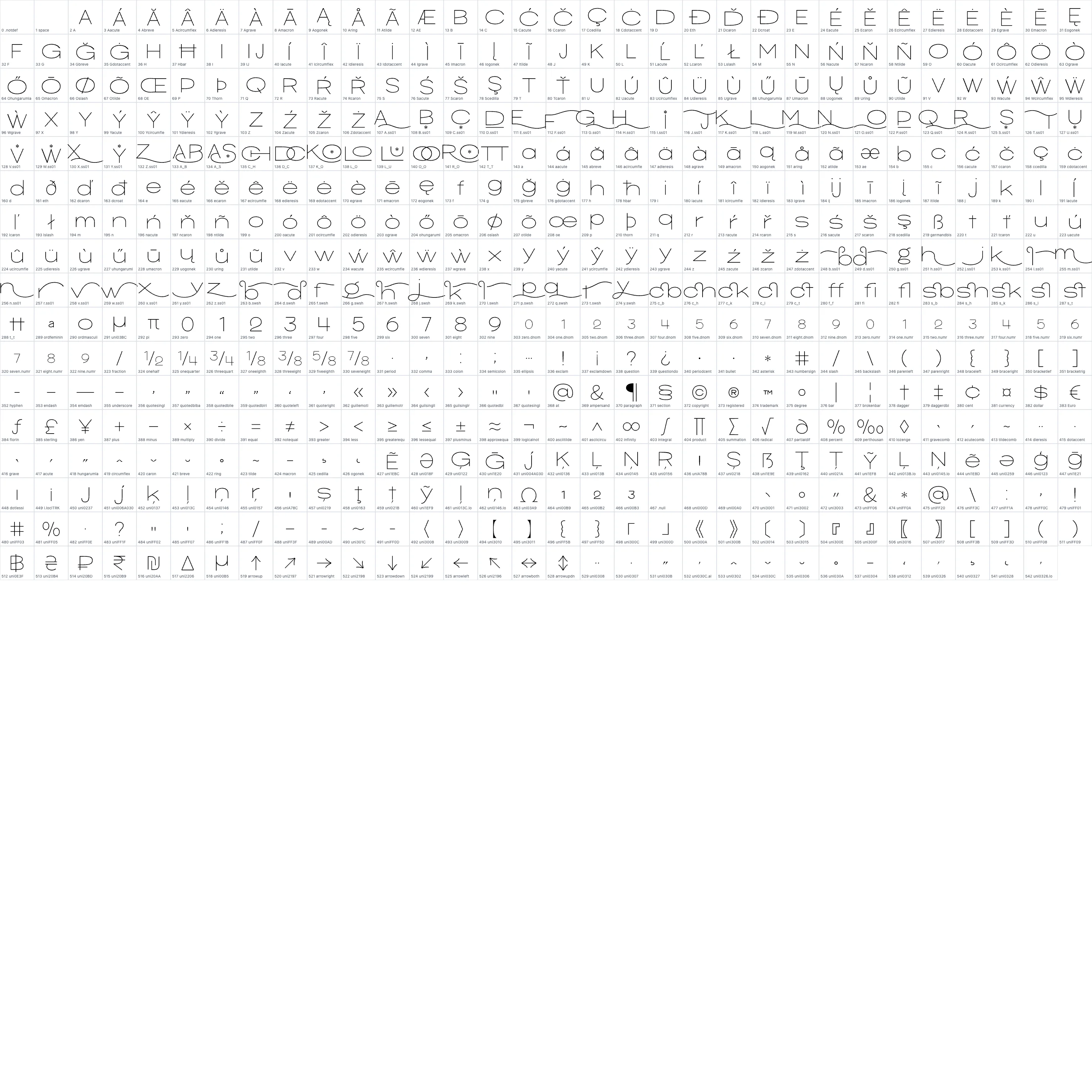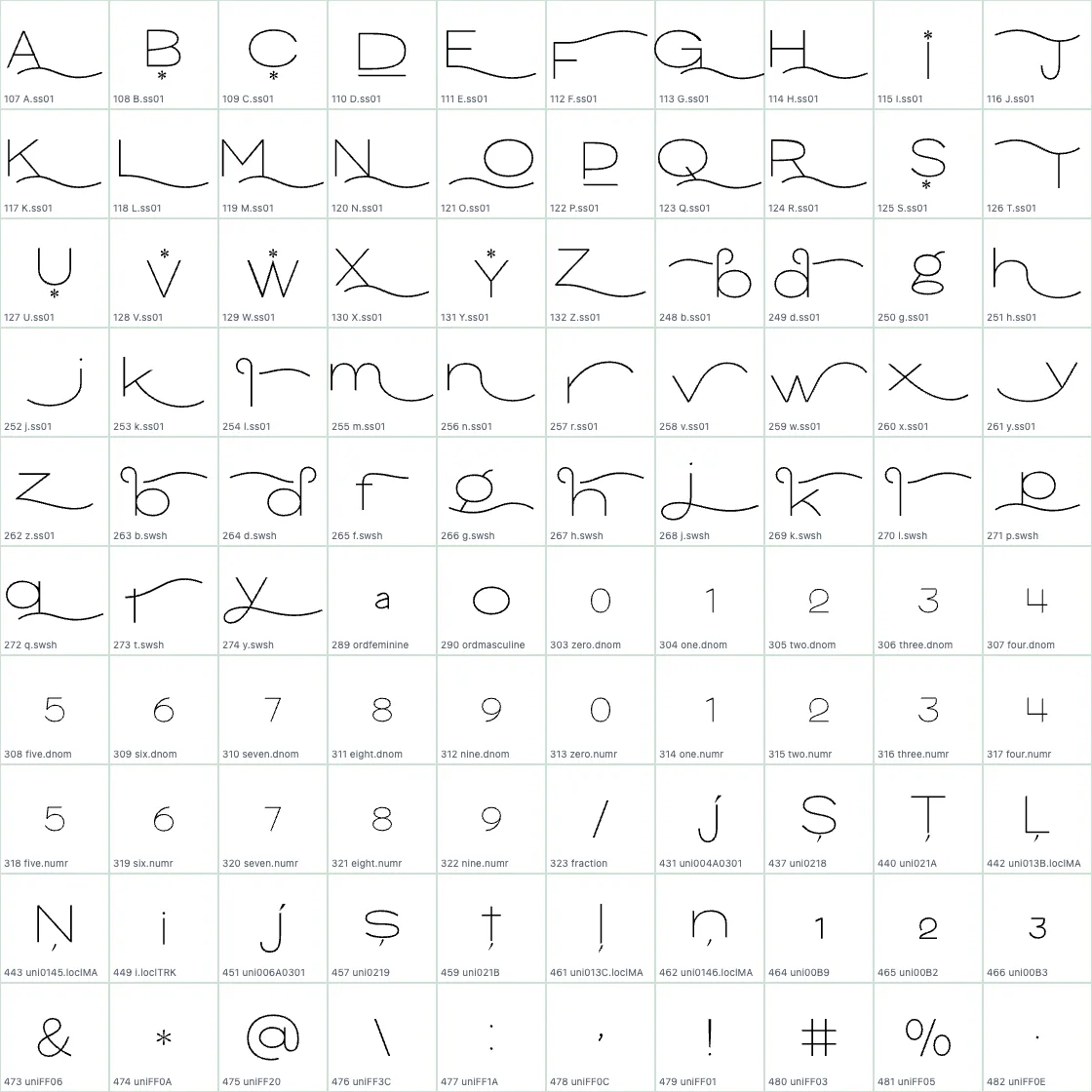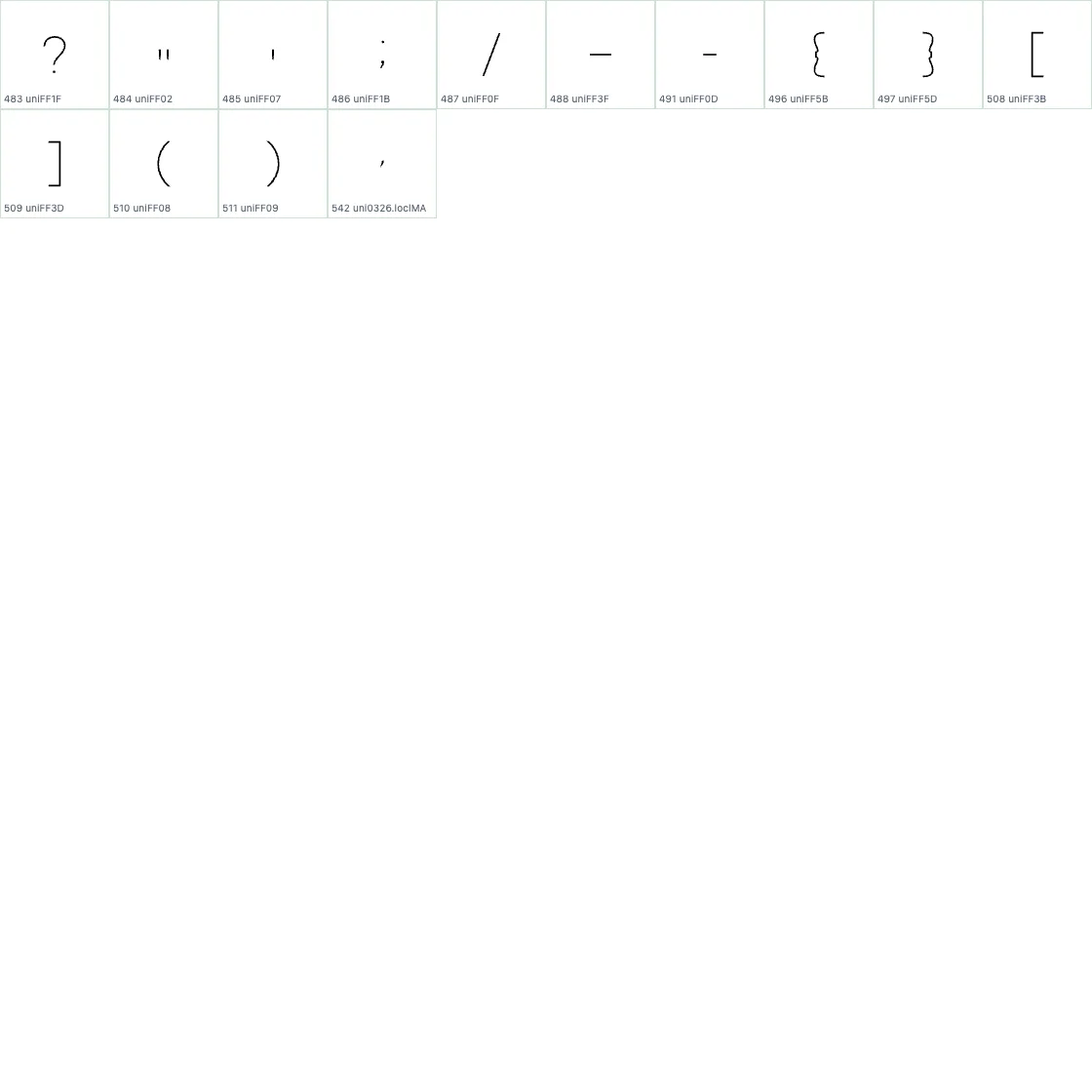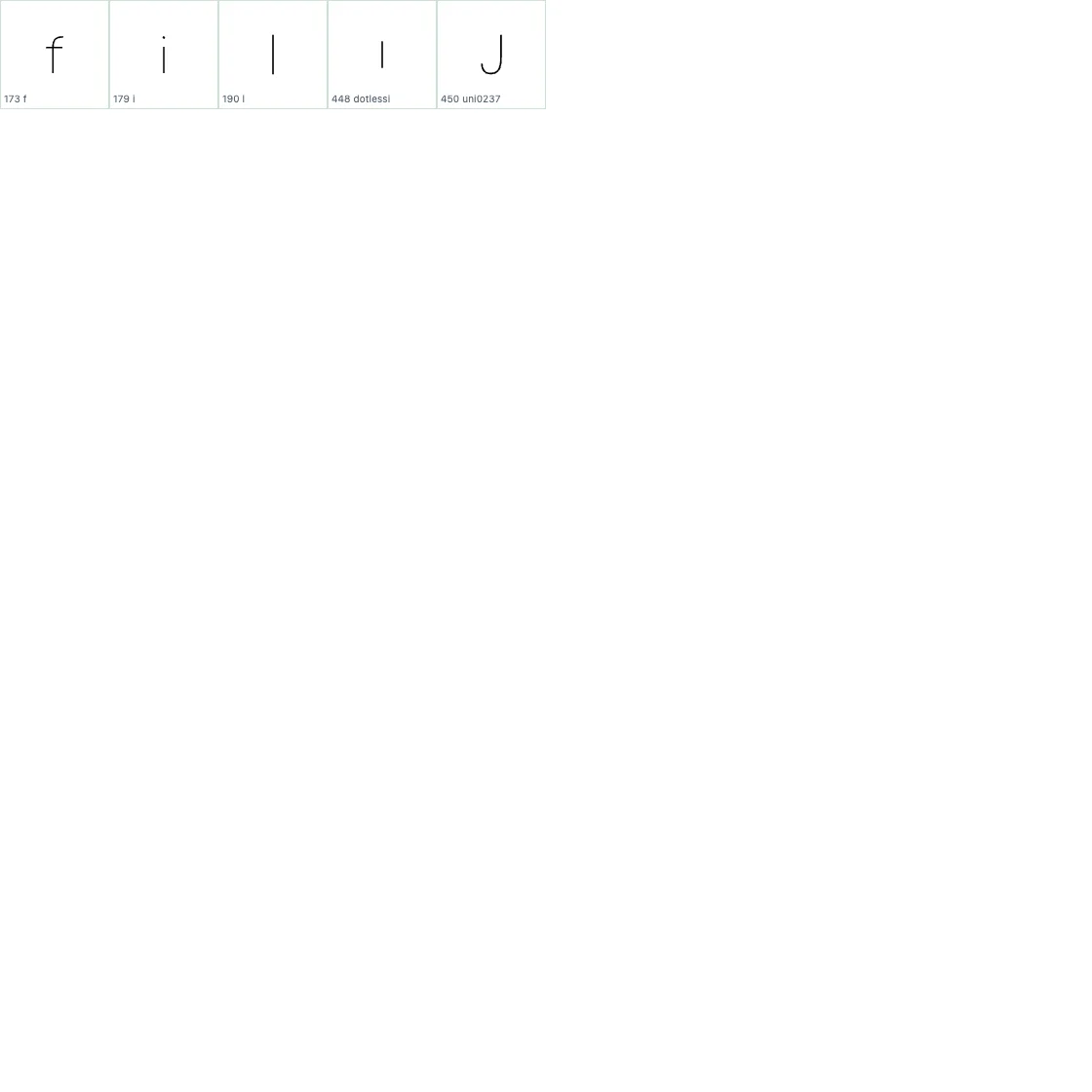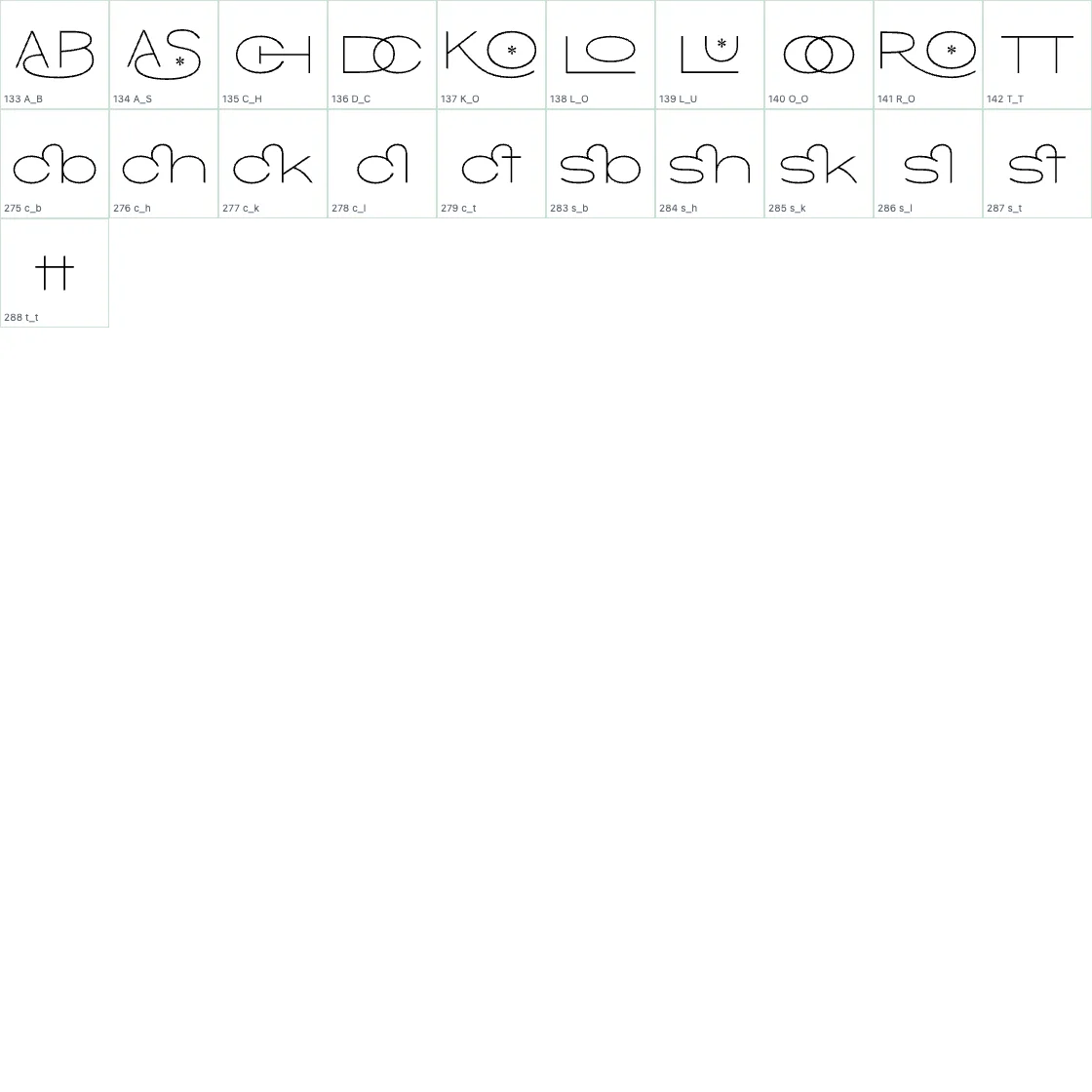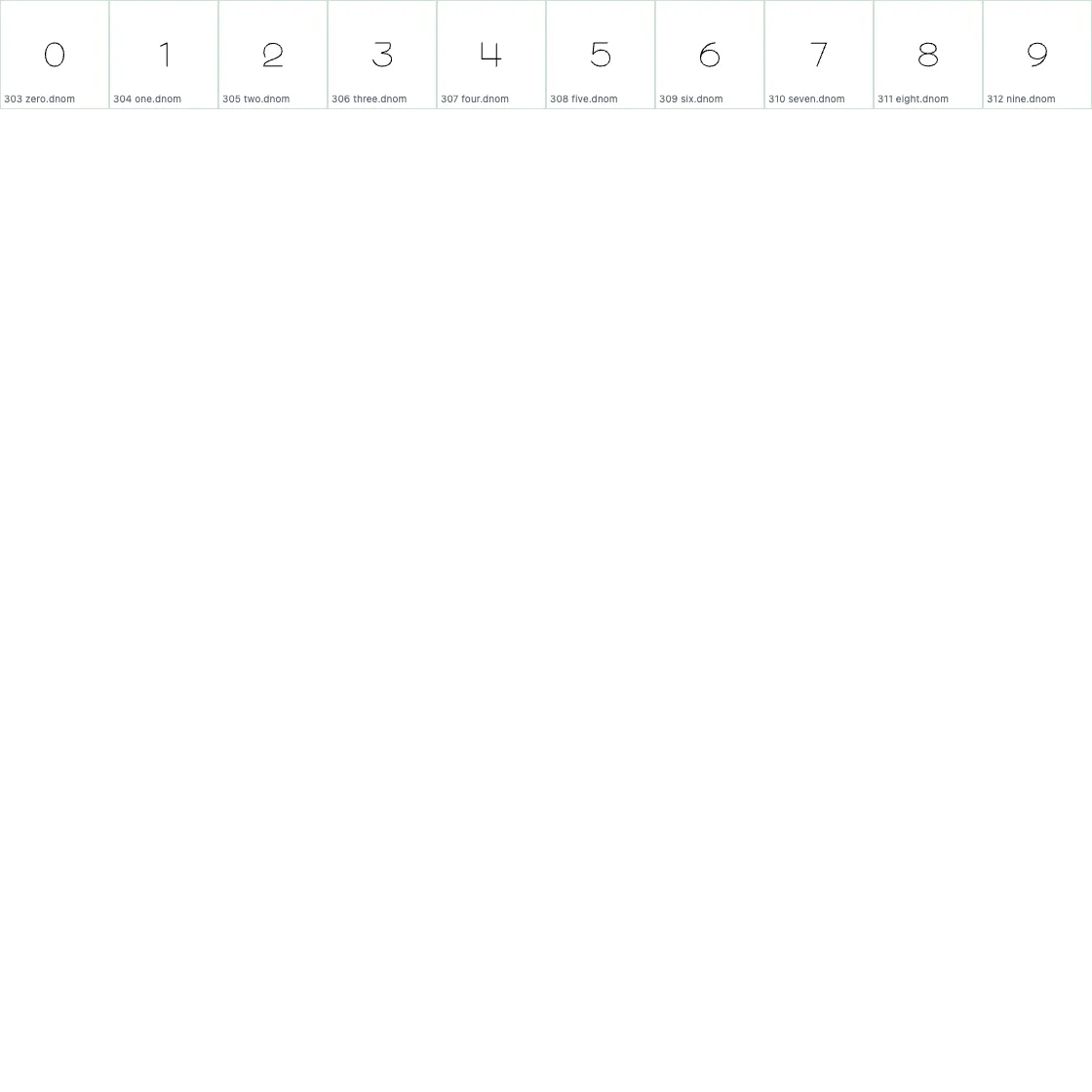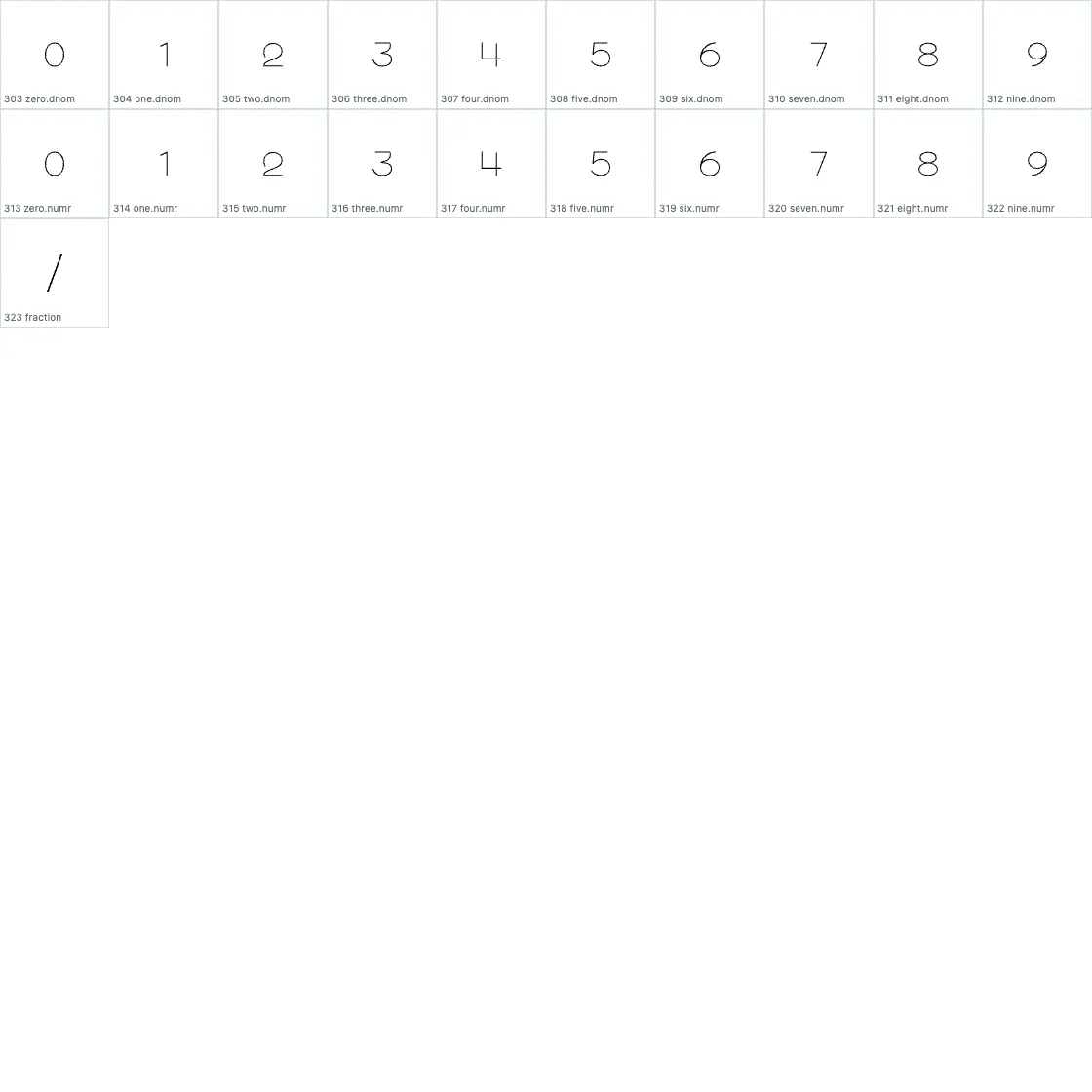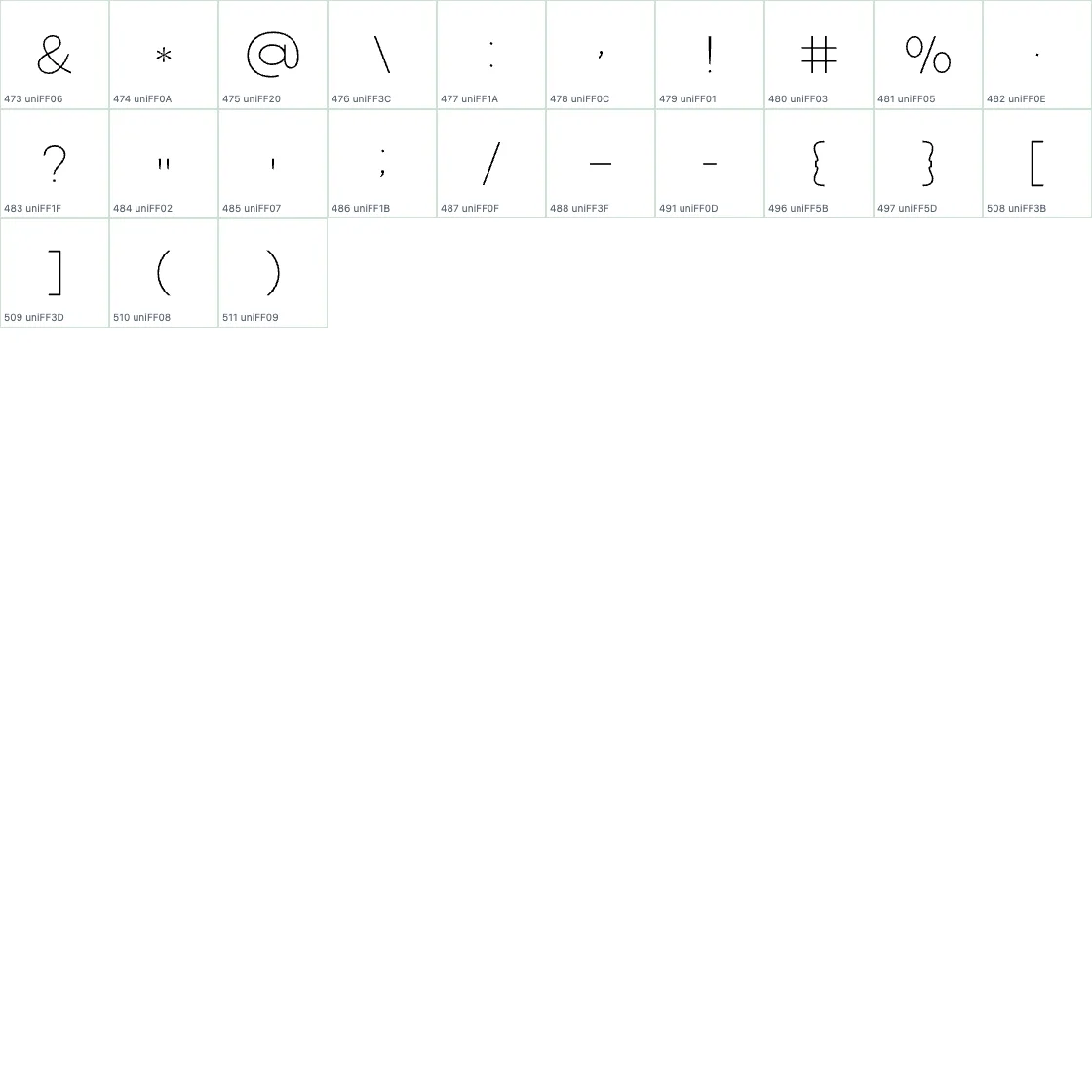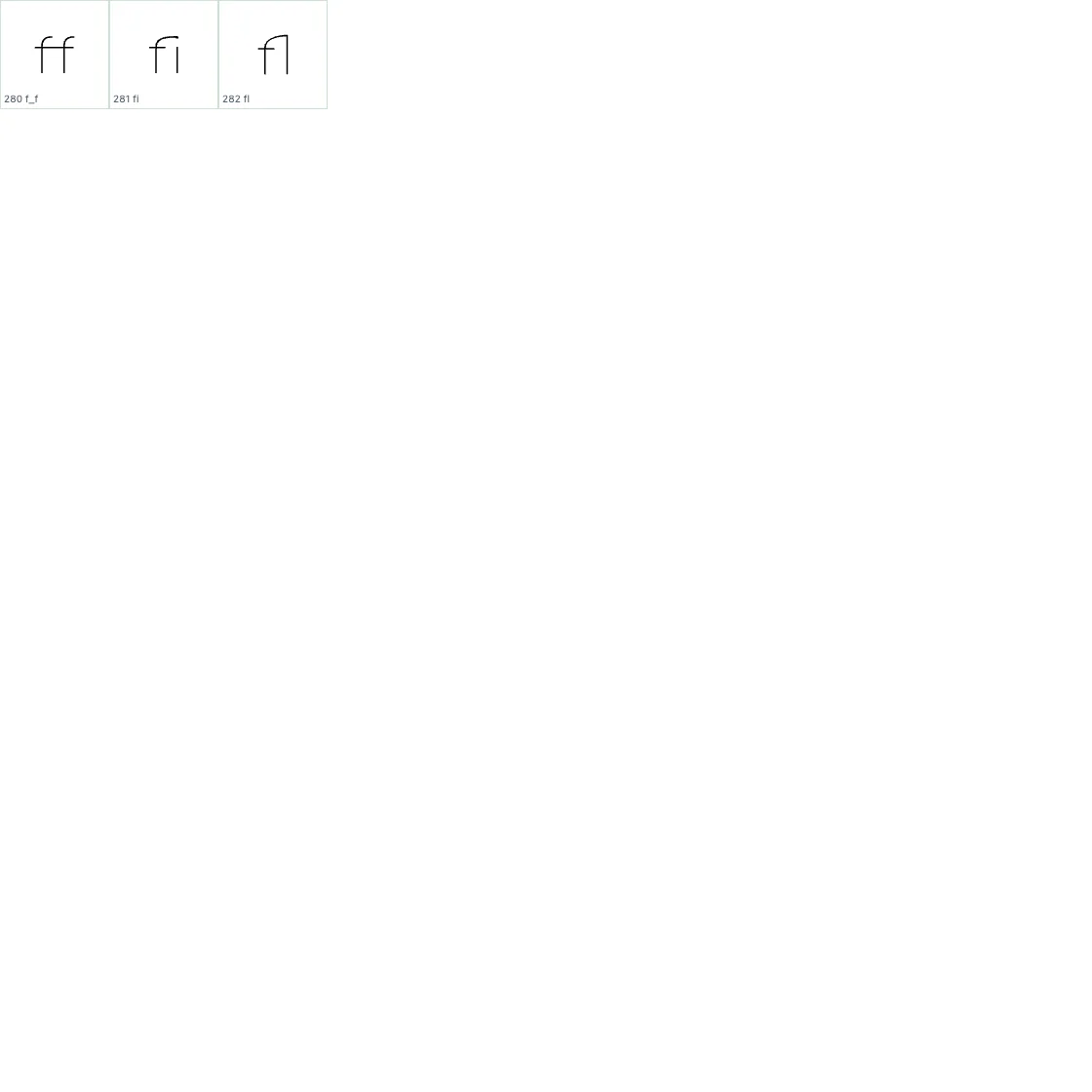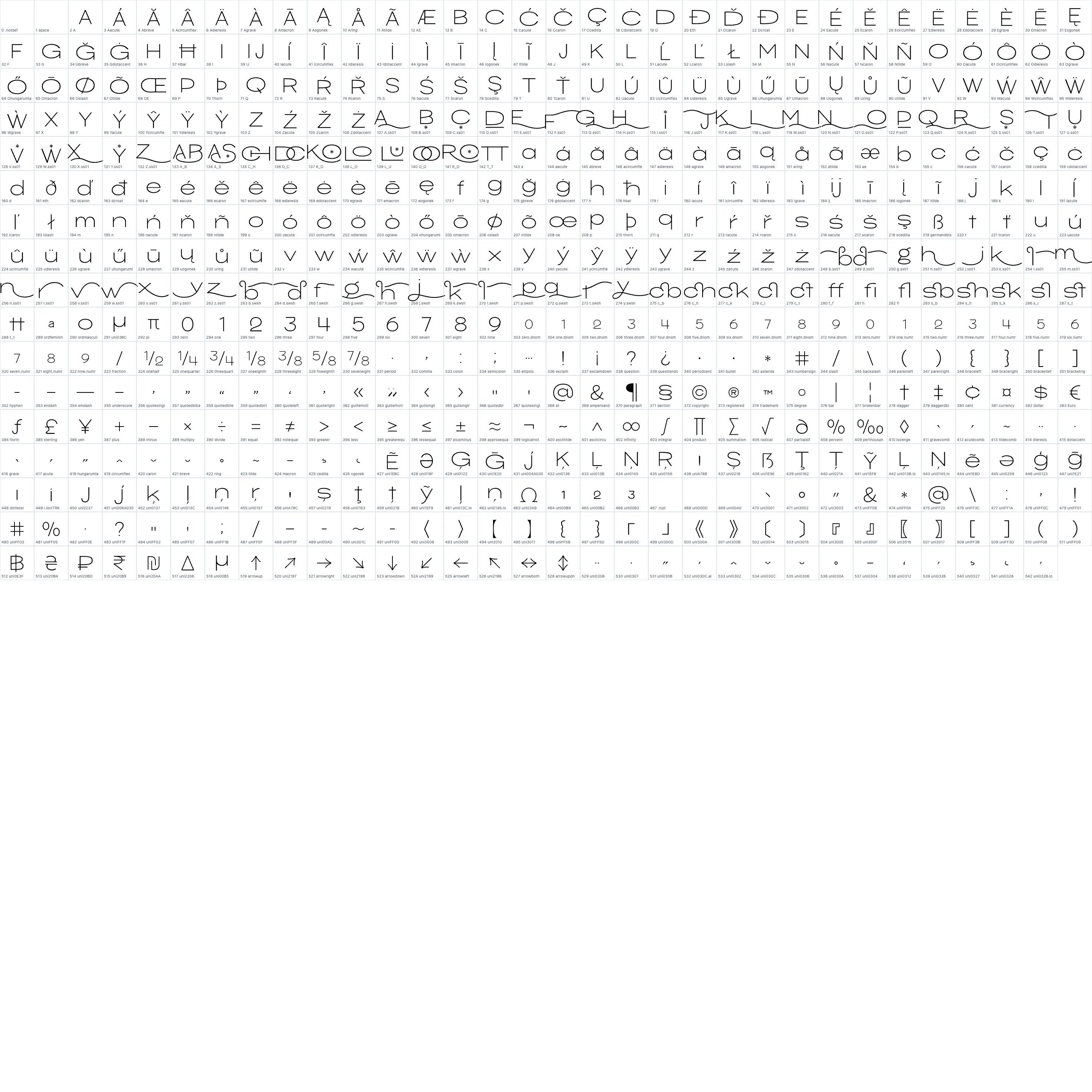
Chekos- Feminine type face design
Chekos feminine type face was created by designer Ekayasa. She wanted to create something that would be both beautiful and functional. Her goal was to make a typeface that could be used for everything from headlines to logos.